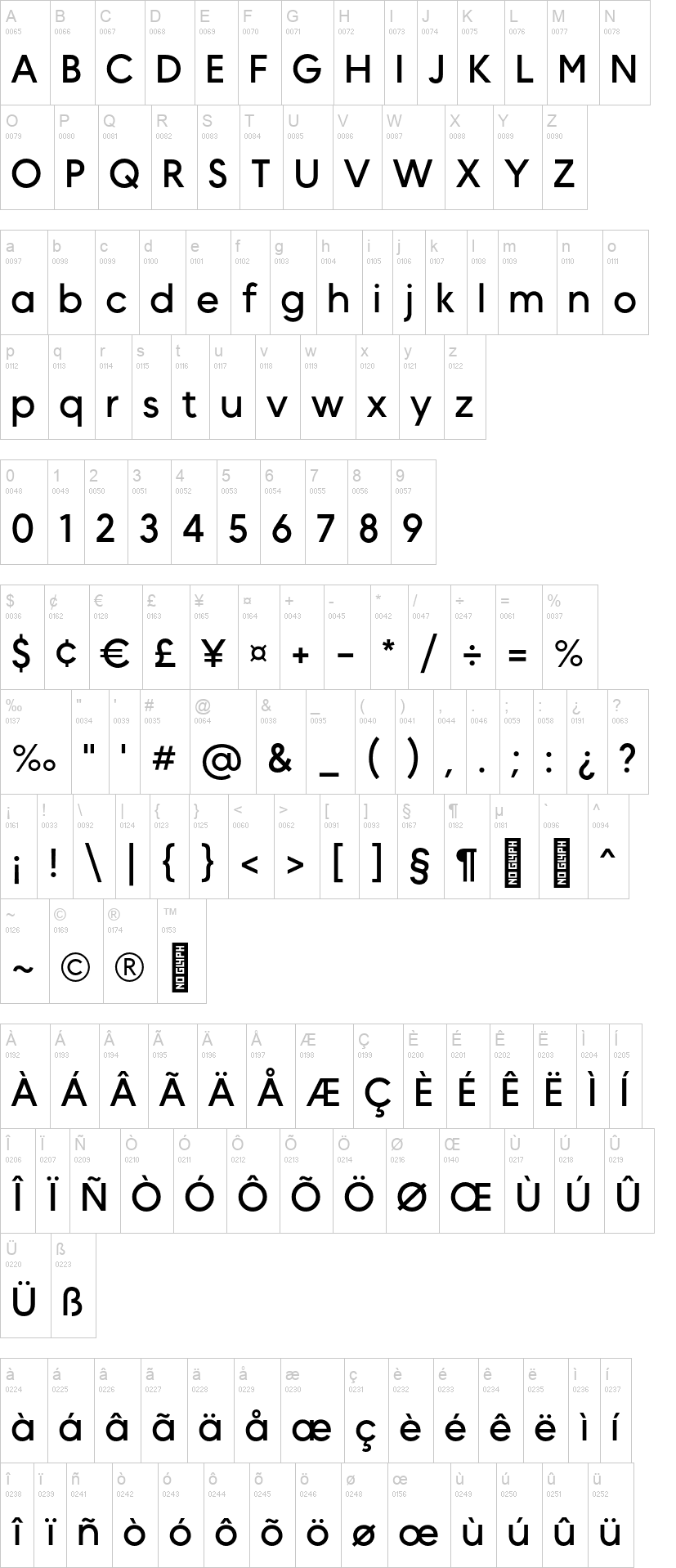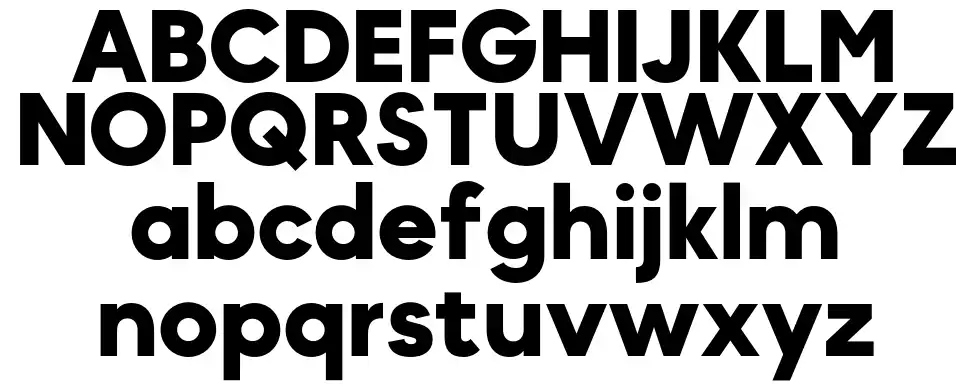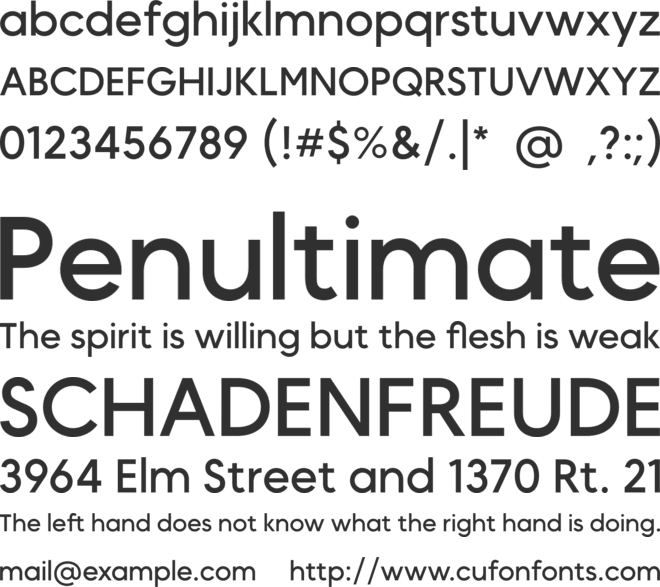
Made Okine Sans Font
Made Okine Sans Font - Web made okine sans is a modern sans serif typefamily. Web made okine sans is a modern sans serif typefamily.
Web made okine sans is a modern sans serif typefamily. Web made okine sans is a modern sans serif typefamily.
MADE Okine Sans Font on Behance
Web made okine sans is a modern sans serif typefamily. Web made okine sans is a modern sans serif typefamily.
MADE Okine Sans Font Behance
Web made okine sans is a modern sans serif typefamily. Web made okine sans is a modern sans serif typefamily.
MADE Okine Sans Font on Behance
Web made okine sans is a modern sans serif typefamily. Web made okine sans is a modern sans serif typefamily.
MADE Okine Sans Font on Behance
Web made okine sans is a modern sans serif typefamily. Web made okine sans is a modern sans serif typefamily.
MADE Okine Sans Font
Web made okine sans is a modern sans serif typefamily. Web made okine sans is a modern sans serif typefamily.
MADE Okine Sans font by MadeType FontRiver
Web made okine sans is a modern sans serif typefamily. Web made okine sans is a modern sans serif typefamily.
MADE Okine Sans Font on Behance
Web made okine sans is a modern sans serif typefamily. Web made okine sans is a modern sans serif typefamily.
Web Made Okine Sans Is A Modern Sans Serif Typefamily.
Web made okine sans is a modern sans serif typefamily.